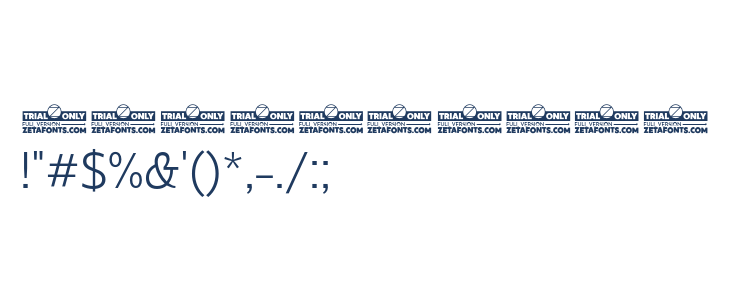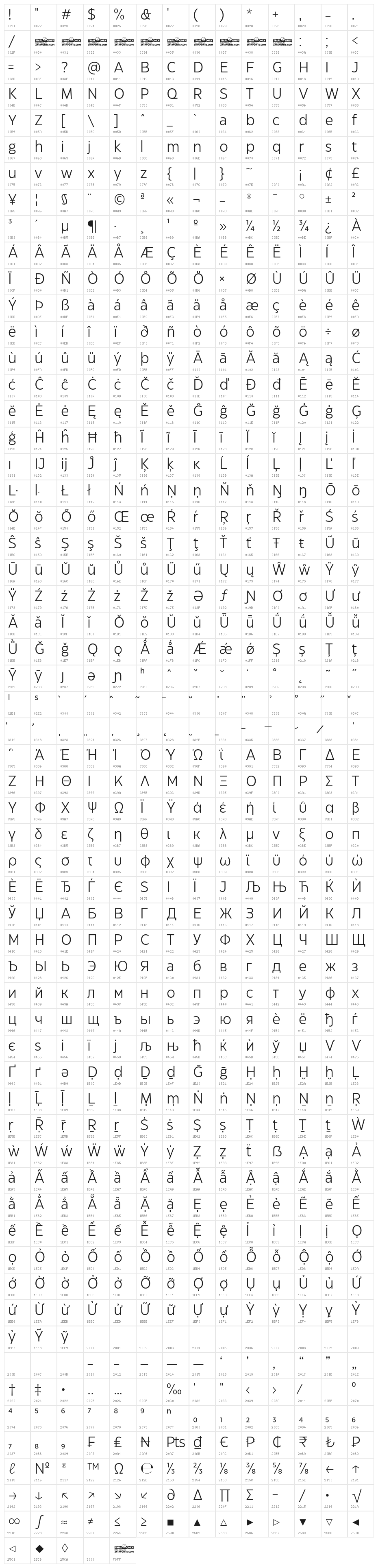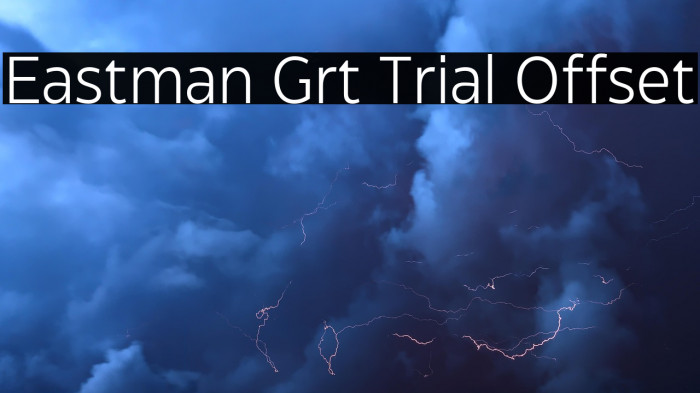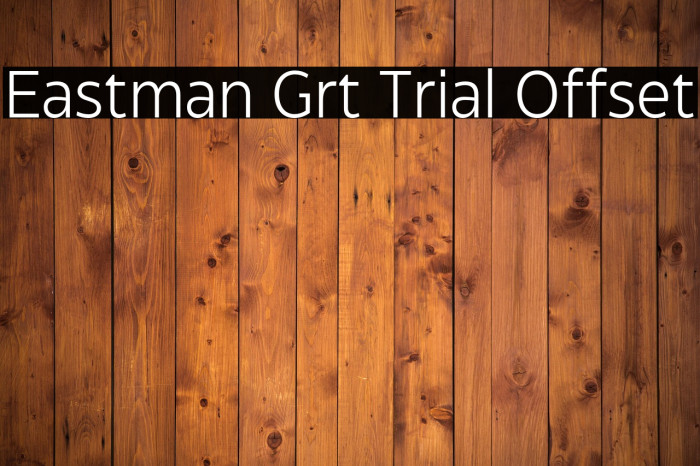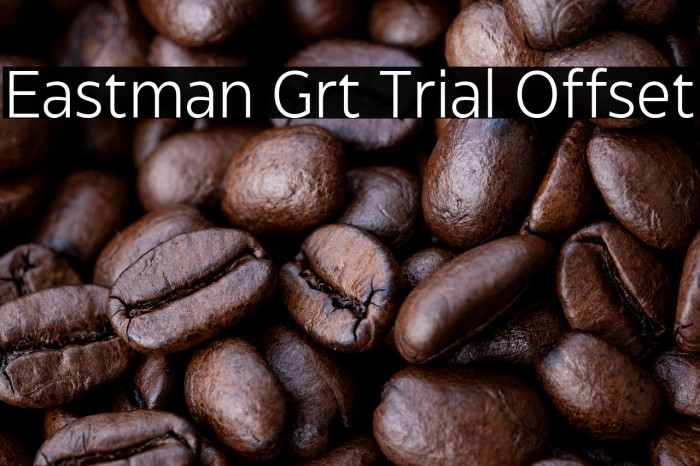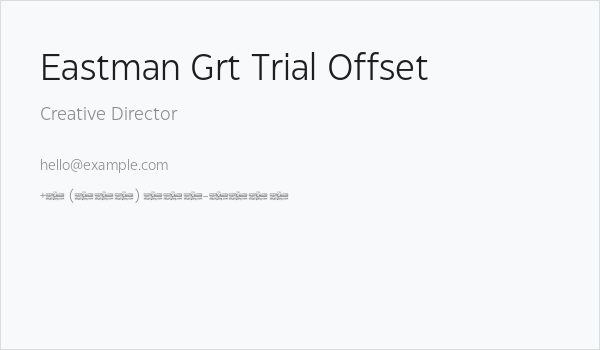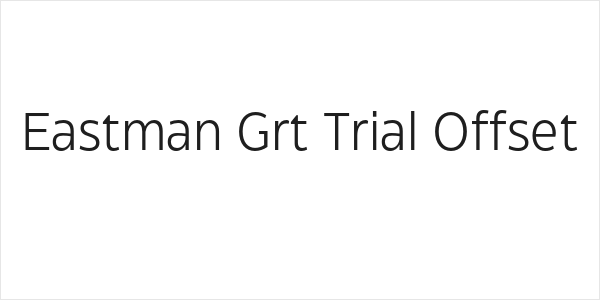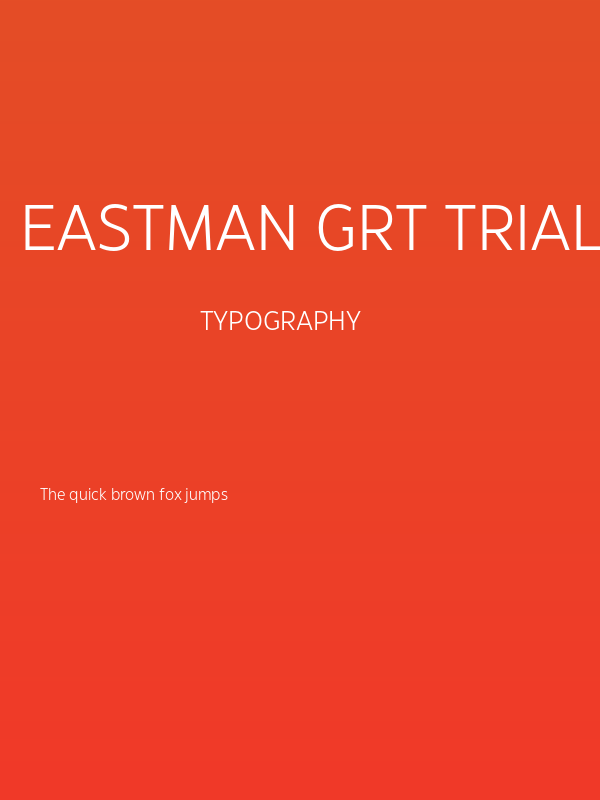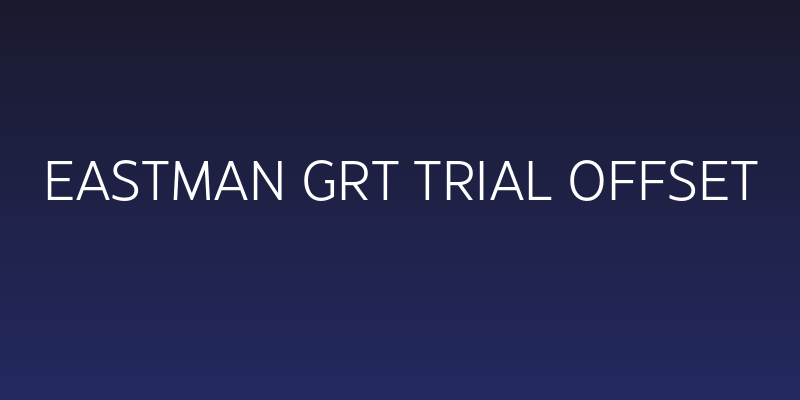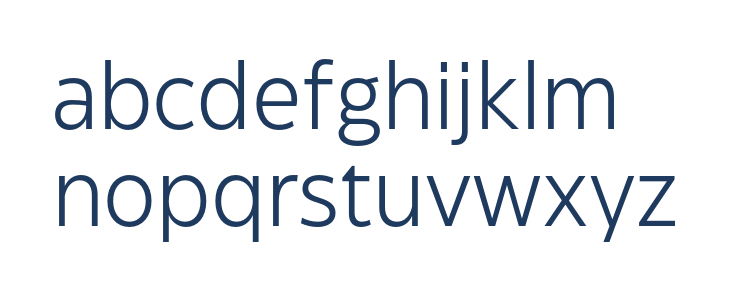
Eastman Grt Trial Offset Font
Eastman Grt Trial Offset Description
This font features a clean and modern sans-serif design with a focus on clarity and readability. The characters are well-proportioned with a uniform stroke width, giving it a balanced and harmonious appearance. The uppercase letters are bold and assertive, while the lowercase letters maintain a friendly and approachable feel. The numerals are clear and distinct, making them easy to read in various contexts. Special characters are designed with simplicity, ensuring they blend seamlessly with the rest of the typeface. Overall, this font exudes a professional and contemporary vibe, suitable for a wide range of applications.